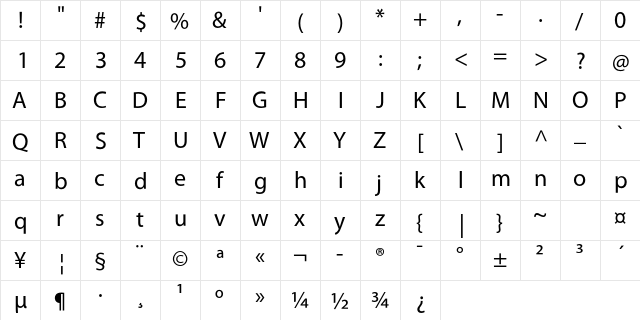
BPG Afxazeti Contrast Regular
| Foundry | BPG InfoTech |
| Designer | BPG-InfoTech |
Design Context for BPG Afxazeti Contrast Typeface
BPG Afxazeti Contrast is a composed and adaptable typeface that performs quietly and consistently across a wide range of design contexts.
Pro Tip: Pair BPG Afxazeti Contrast with a font of contrasting weight or personality to build a more expressive typographic hierarchy.